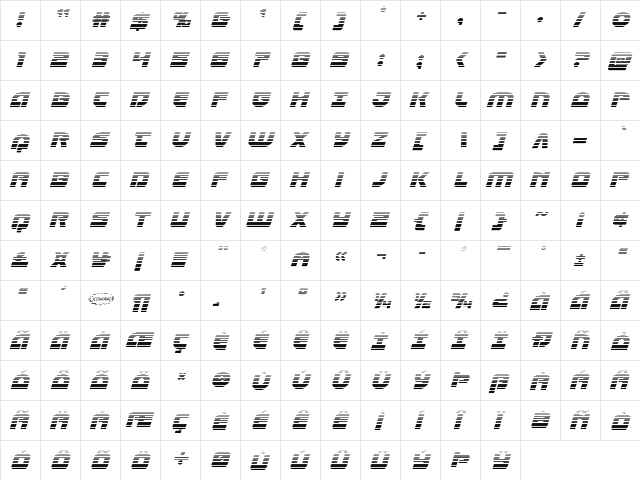
Laser Corps Gradient Italic Regular
Design Context for Laser Corps Gradient Italic Typeface
Laser Corps Gradient Italic is a composed and adaptable typeface that performs quietly and consistently across a wide range of design contexts. The slanted form adds forward momentum and visual energy.